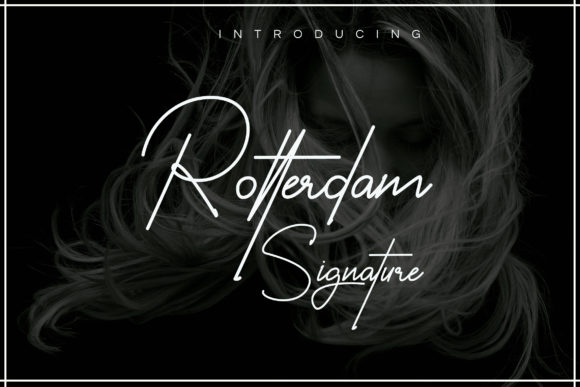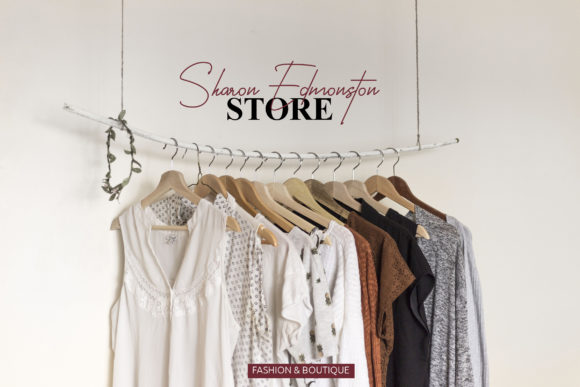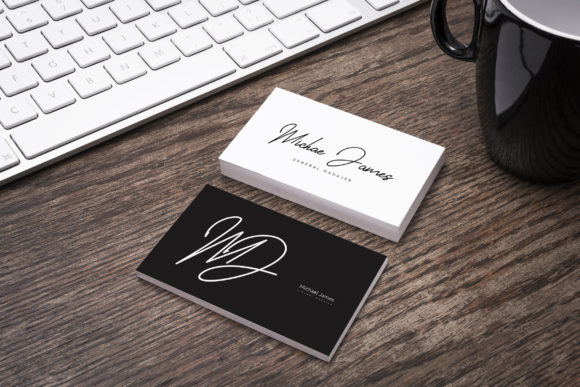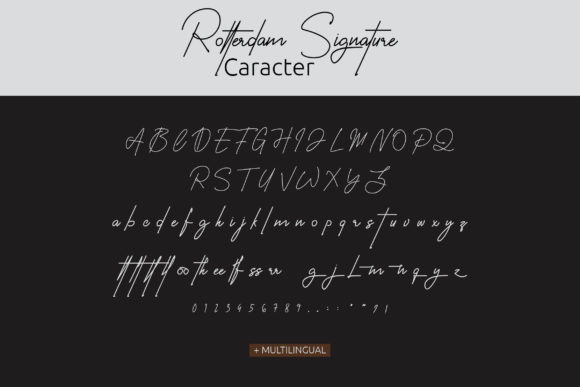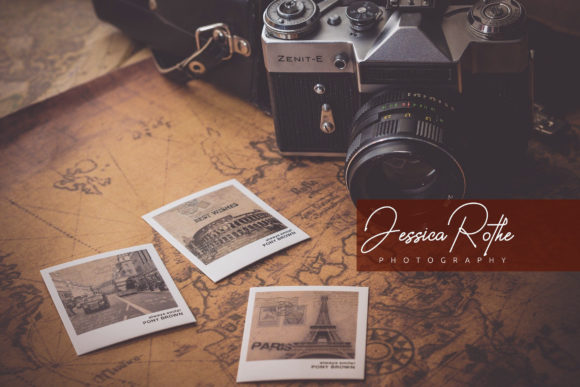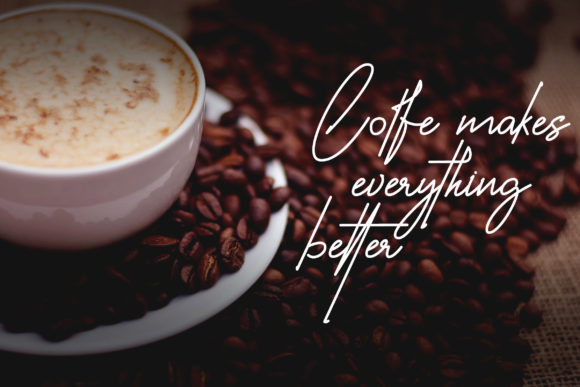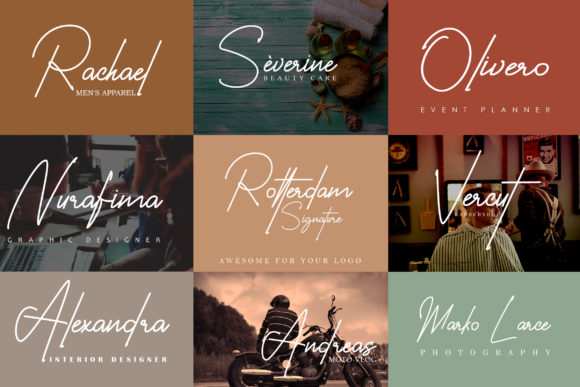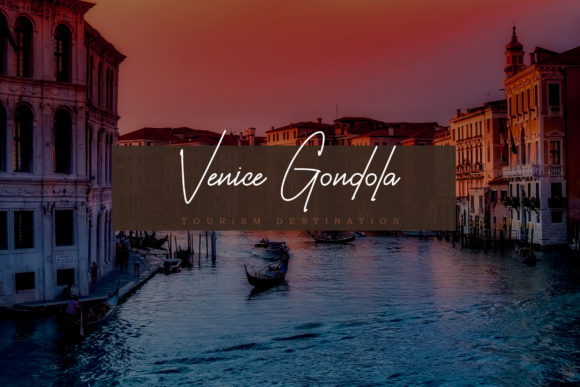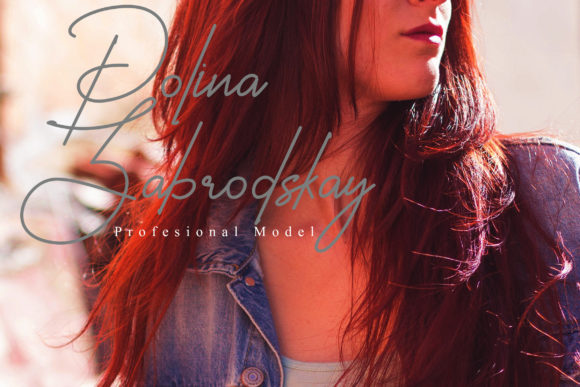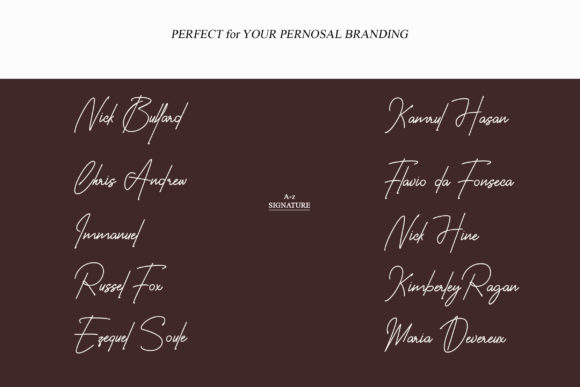
Rotterdam Font
About Rotterdam Font
Rotterdam simplifies elegance into one truly outstanding handwritten font. It maintains its classy calligraphic influences while feeling contemporary and fresh. This versatility will appeal to a wide range of crafty ideas, from letterheads and titles to stationery.